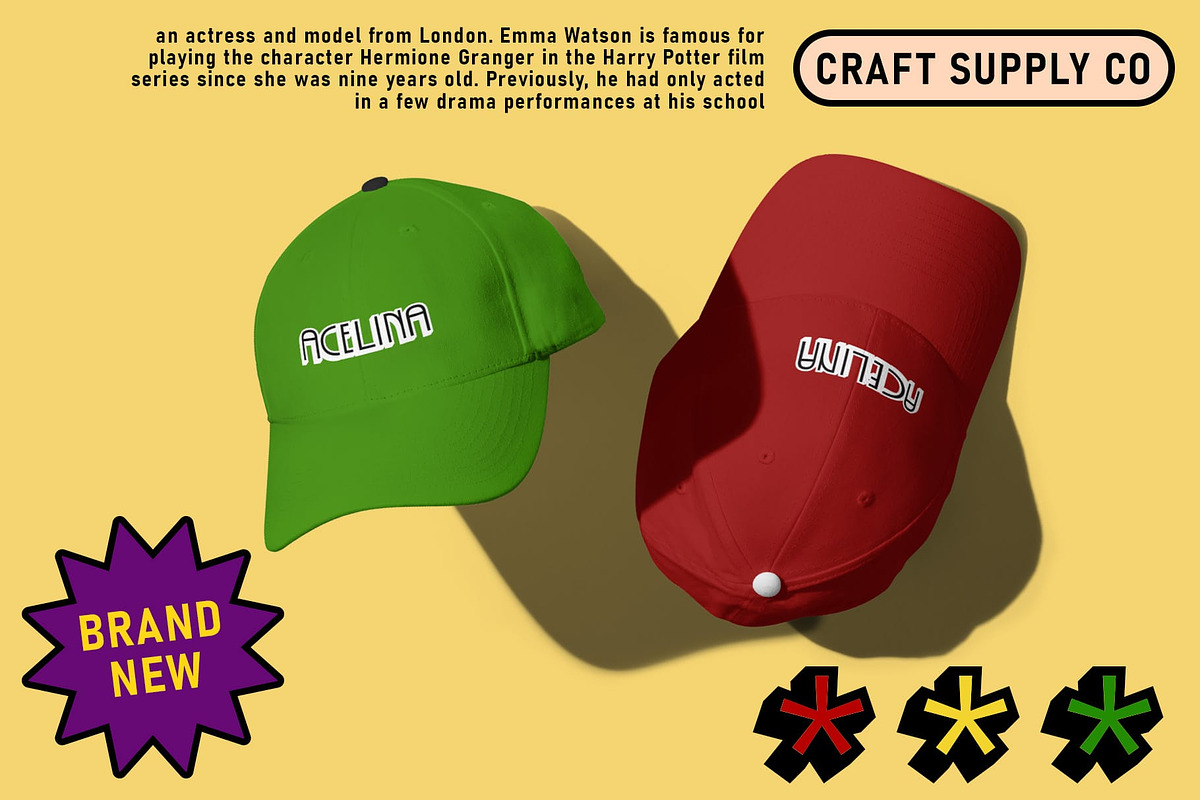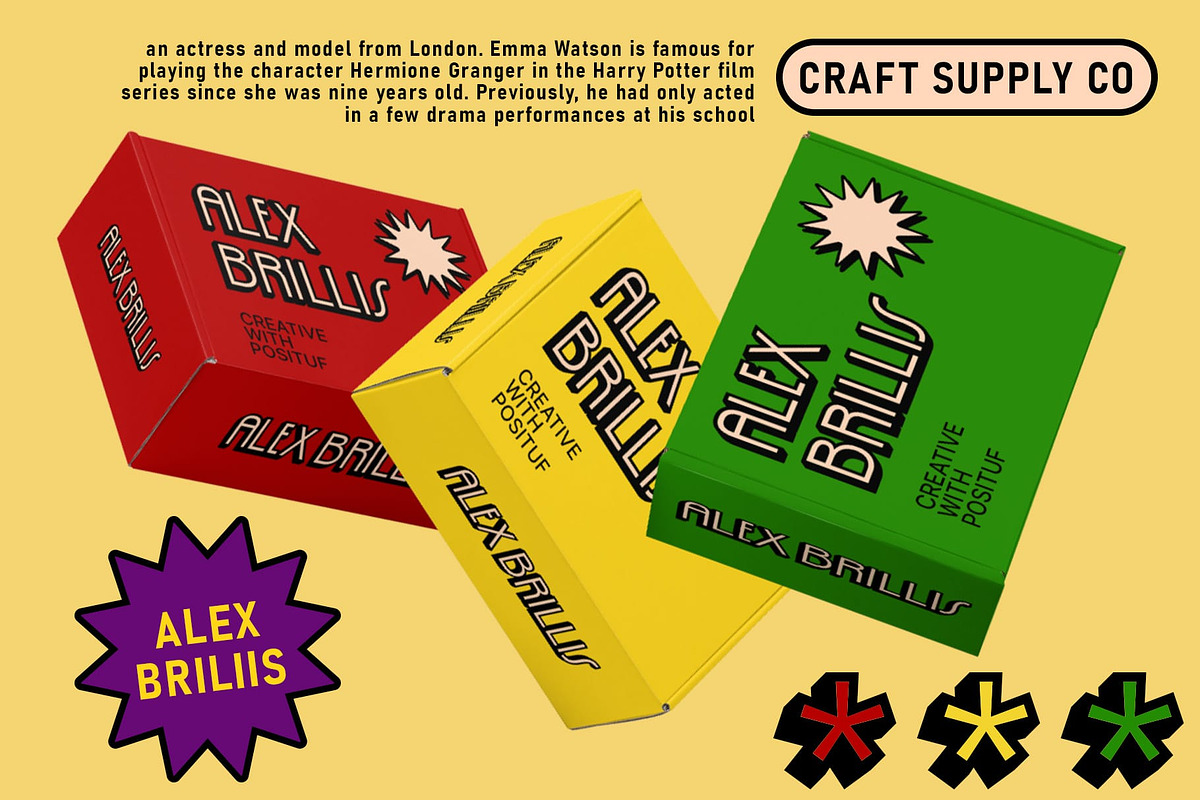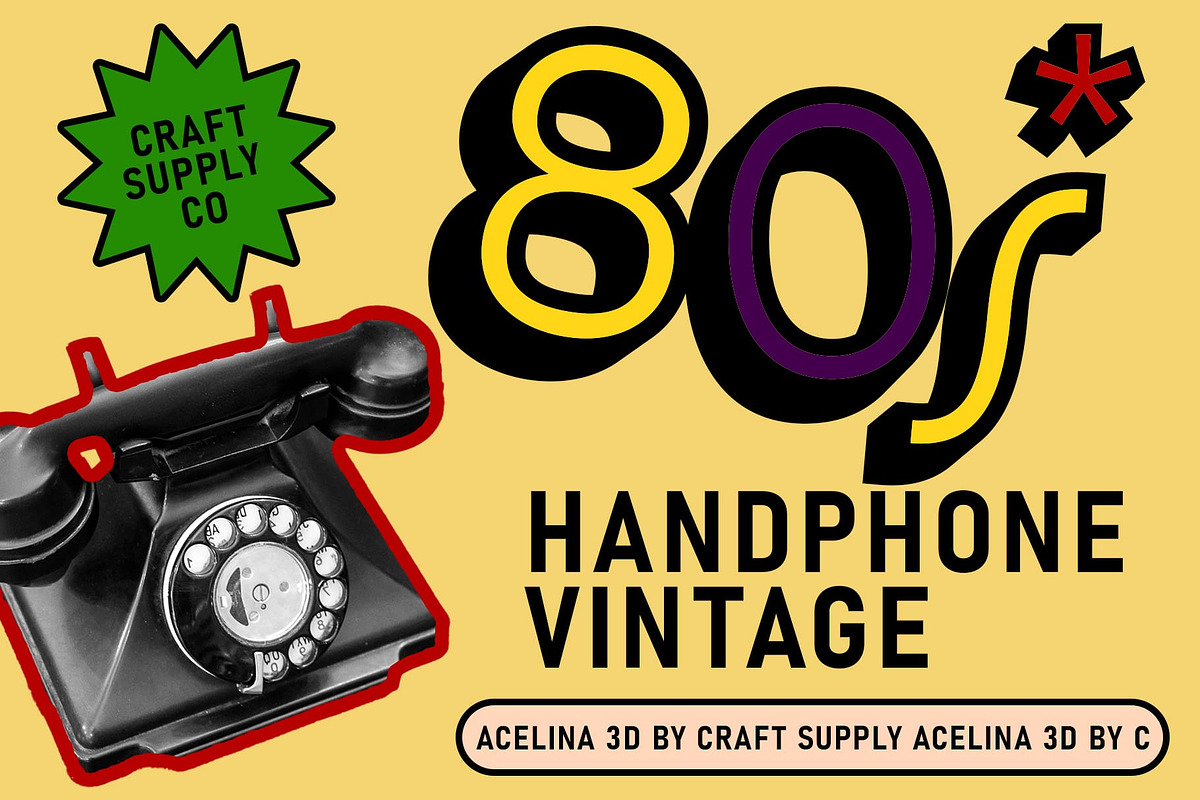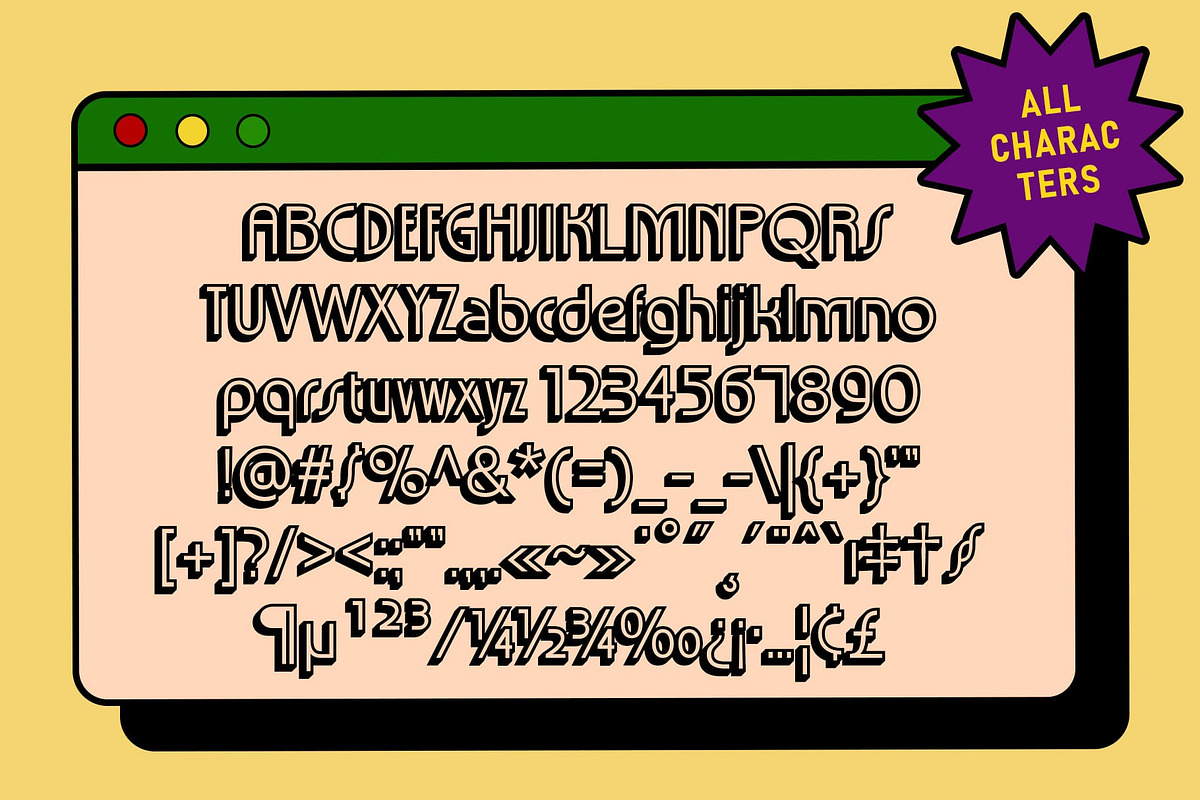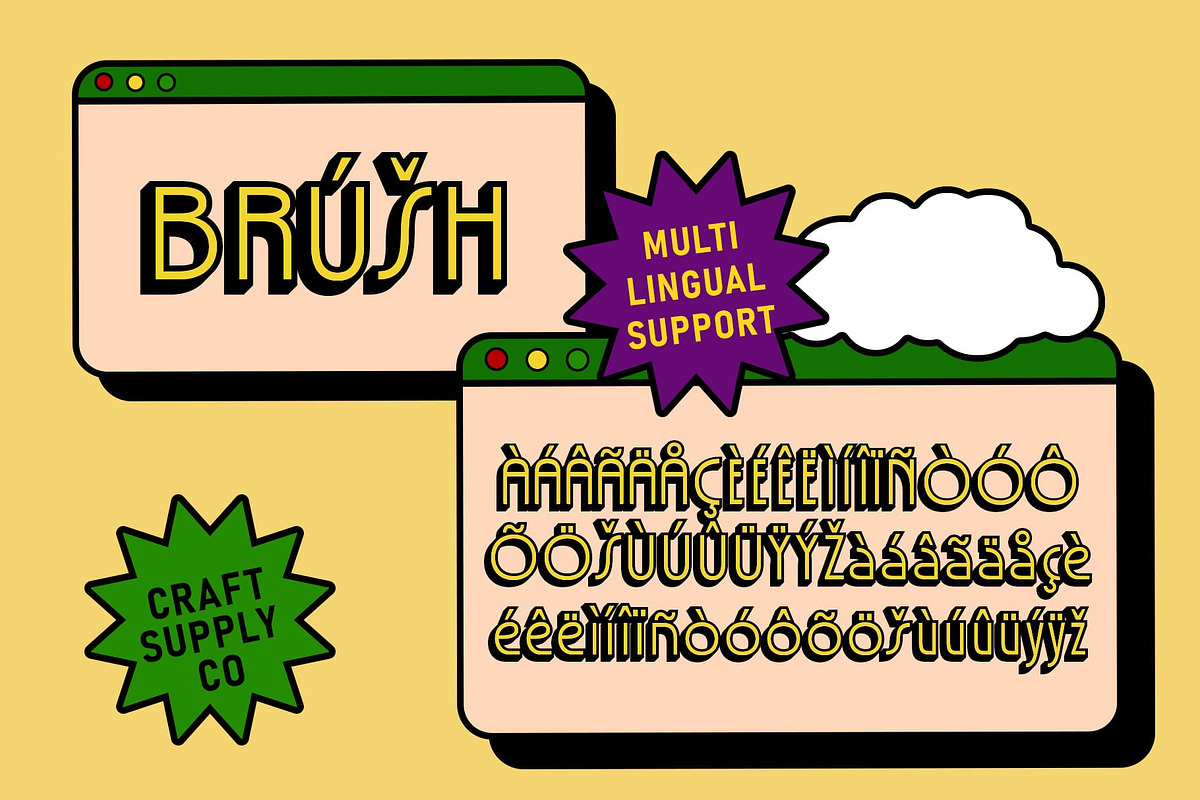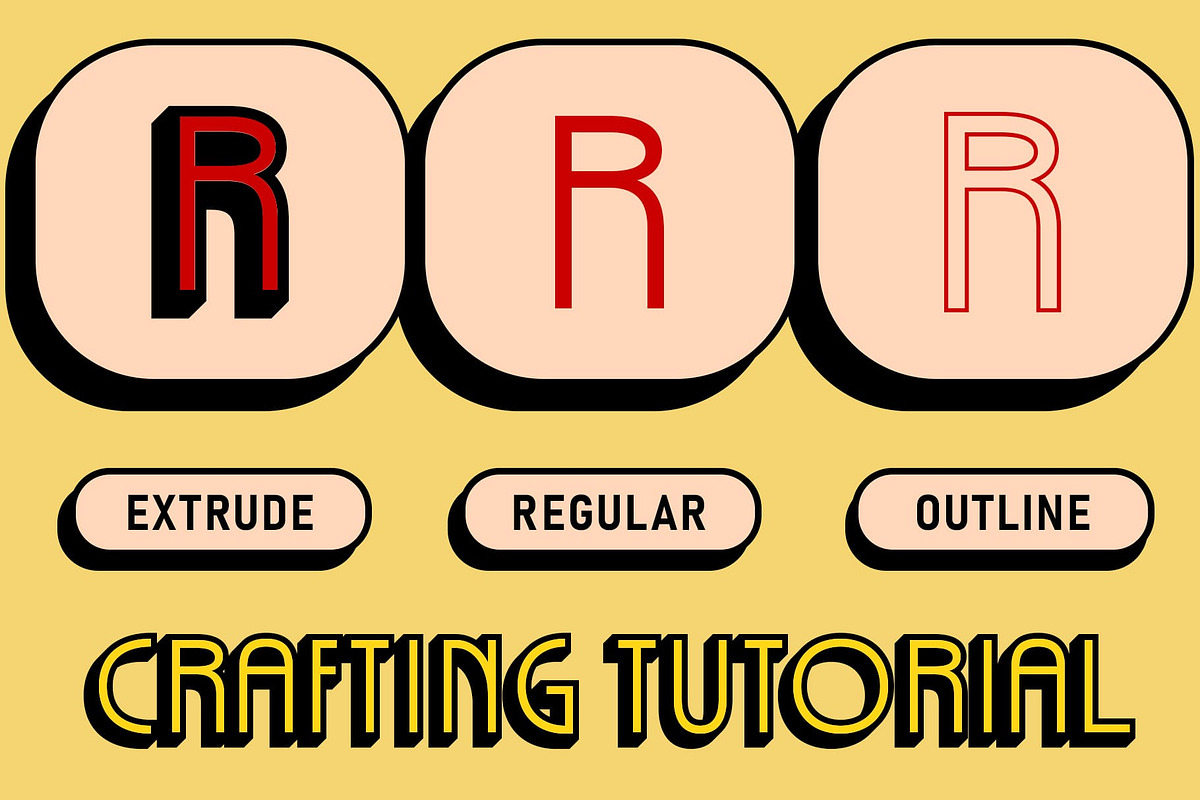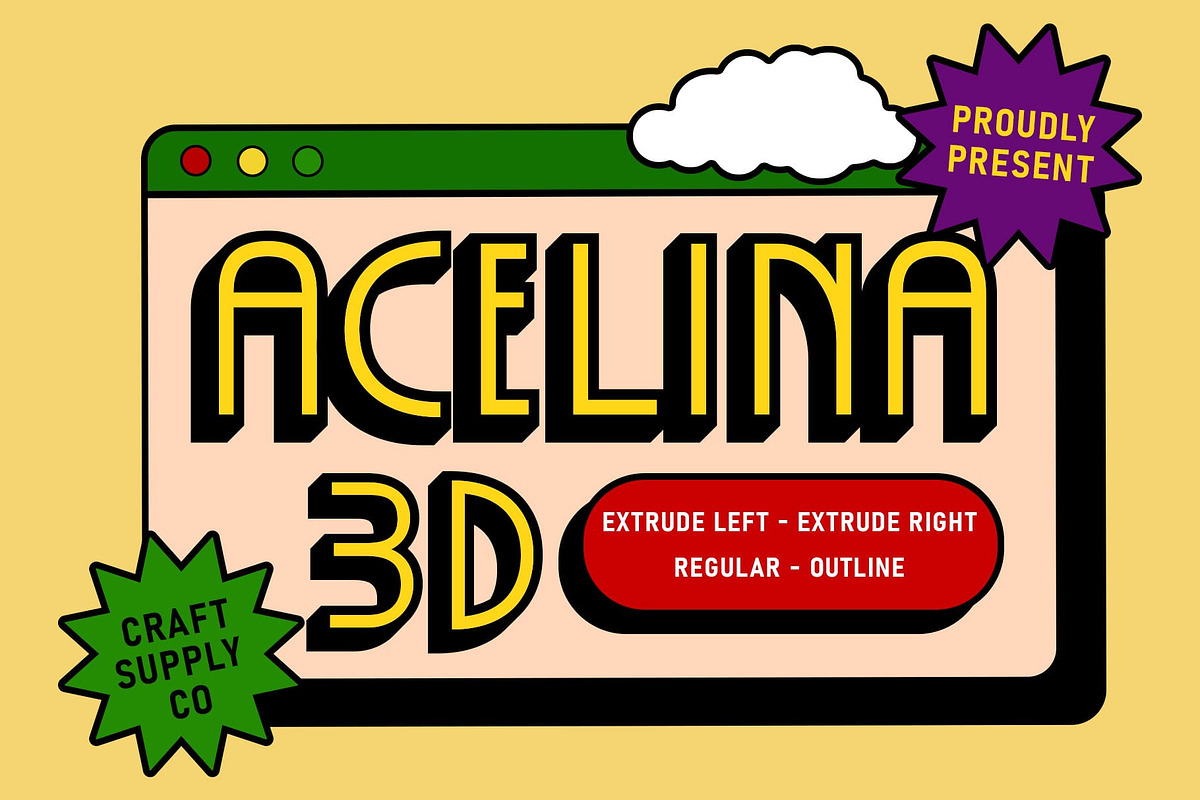
Acelina 3D
Acelina 3D: Reviving Art Deco Elegance
Art Deco Inspiration Acelina 3D draws inspiration from the clean lines and geometric forms of the Art Deco movement. Its sleek and sophisticated design pays homage to the timeless elegance of the early 20th century.
Modern Twist with 3D Effects Infused with modern technology, This font features stunning 3D effects that elevate its visual appeal. These effects add depth and dimension to the font, giving it a contemporary edge while retaining its Art Deco charm.
Versatile Display Font Designed primarily for display purposes, This font shines in a variety of applications, from branding and advertising to digital interfaces. Its clean and crisp appearance ensures readability and impact across different media.
Captivating and Contemporary This font stands out as a captivating and contemporary display font, seamlessly blending the elegance of Art Deco with the allure of modern design. Its clean lines, geometric shapes, and 3D effects make it a versatile choice for projects that demand sophistication and style.
Art Deco Meets Modernity This font bridges the gap between past and present, offering a fresh take on Art Deco aesthetics with its clean forms and dynamic 3D effects. Whether used in print or digital, it adds a touch of timeless elegance and modern flair to any design project. Experience the fusion of classic and contemporary with Acelina 3D.
- Acelina Regular
- Acelina Outline
- Acelina Extrude Right
- Acelina Extrude Left